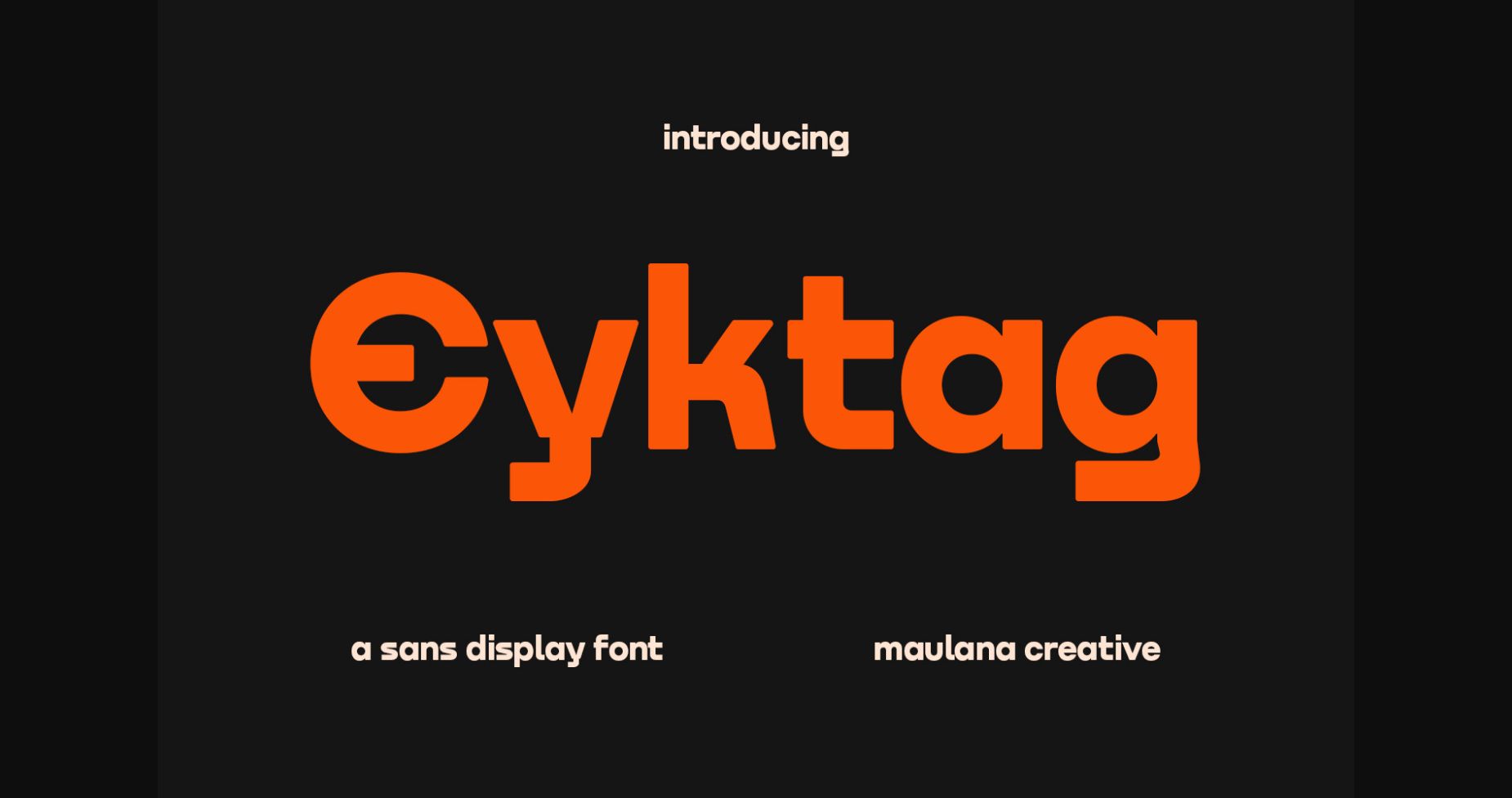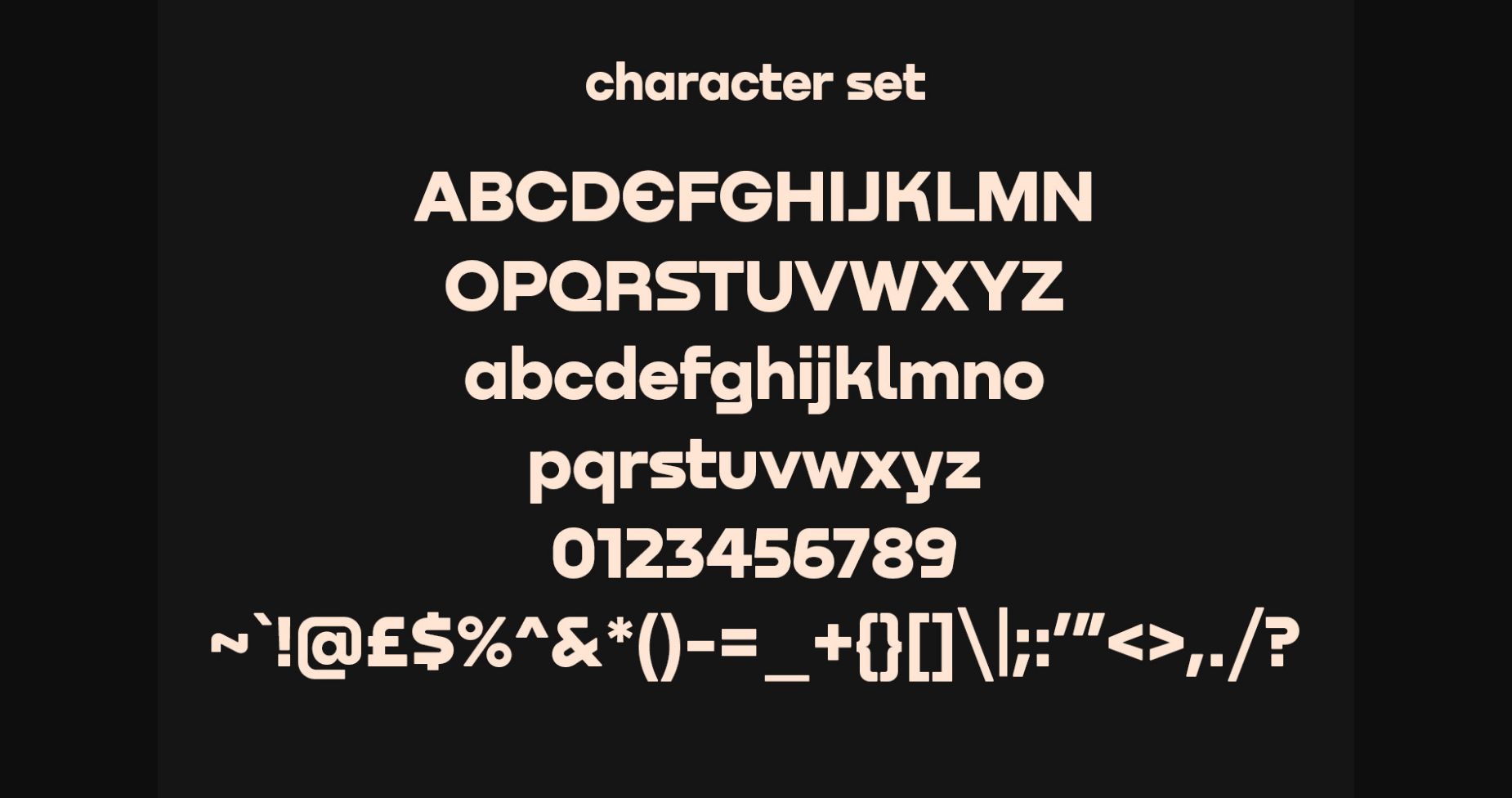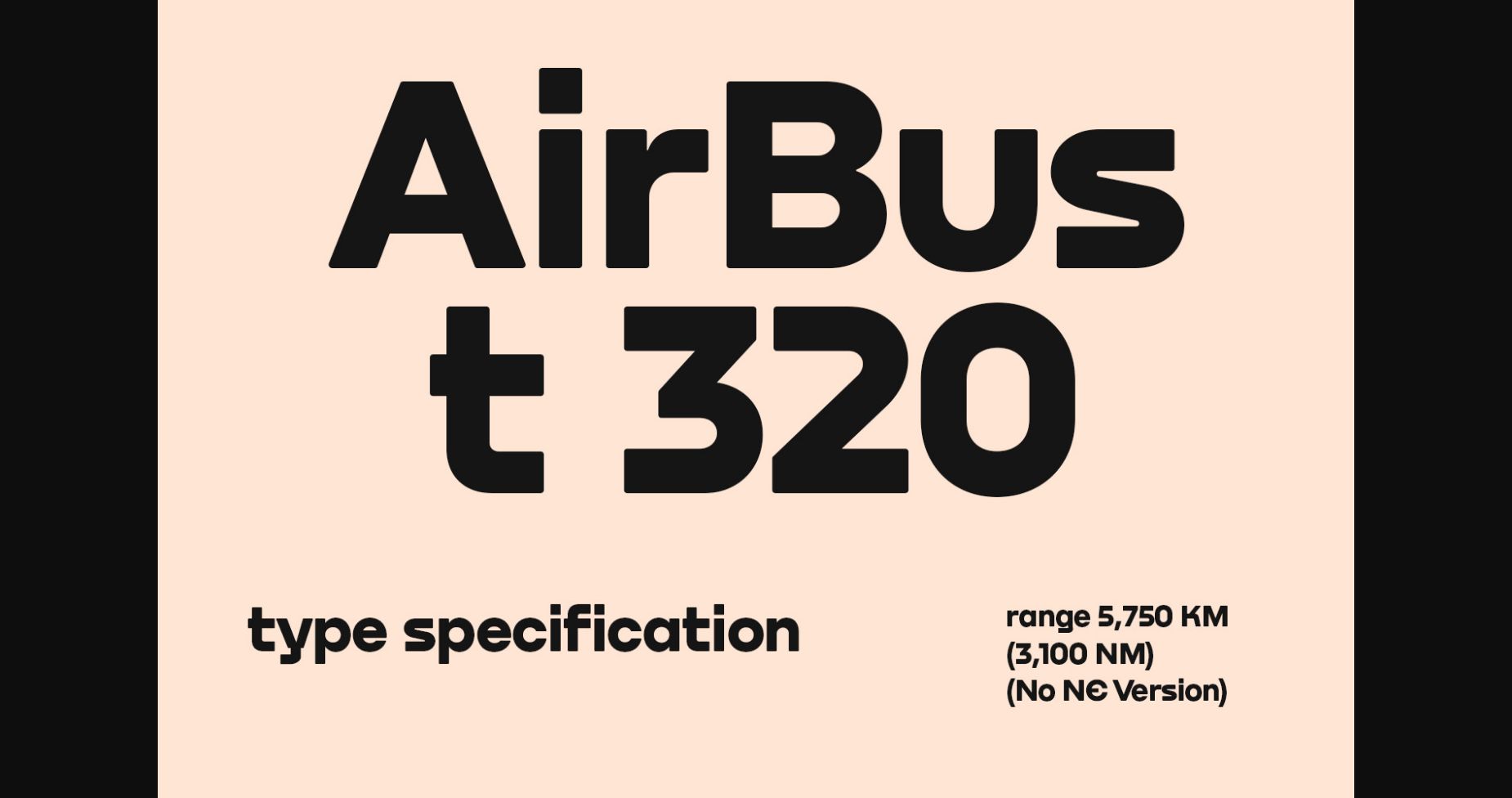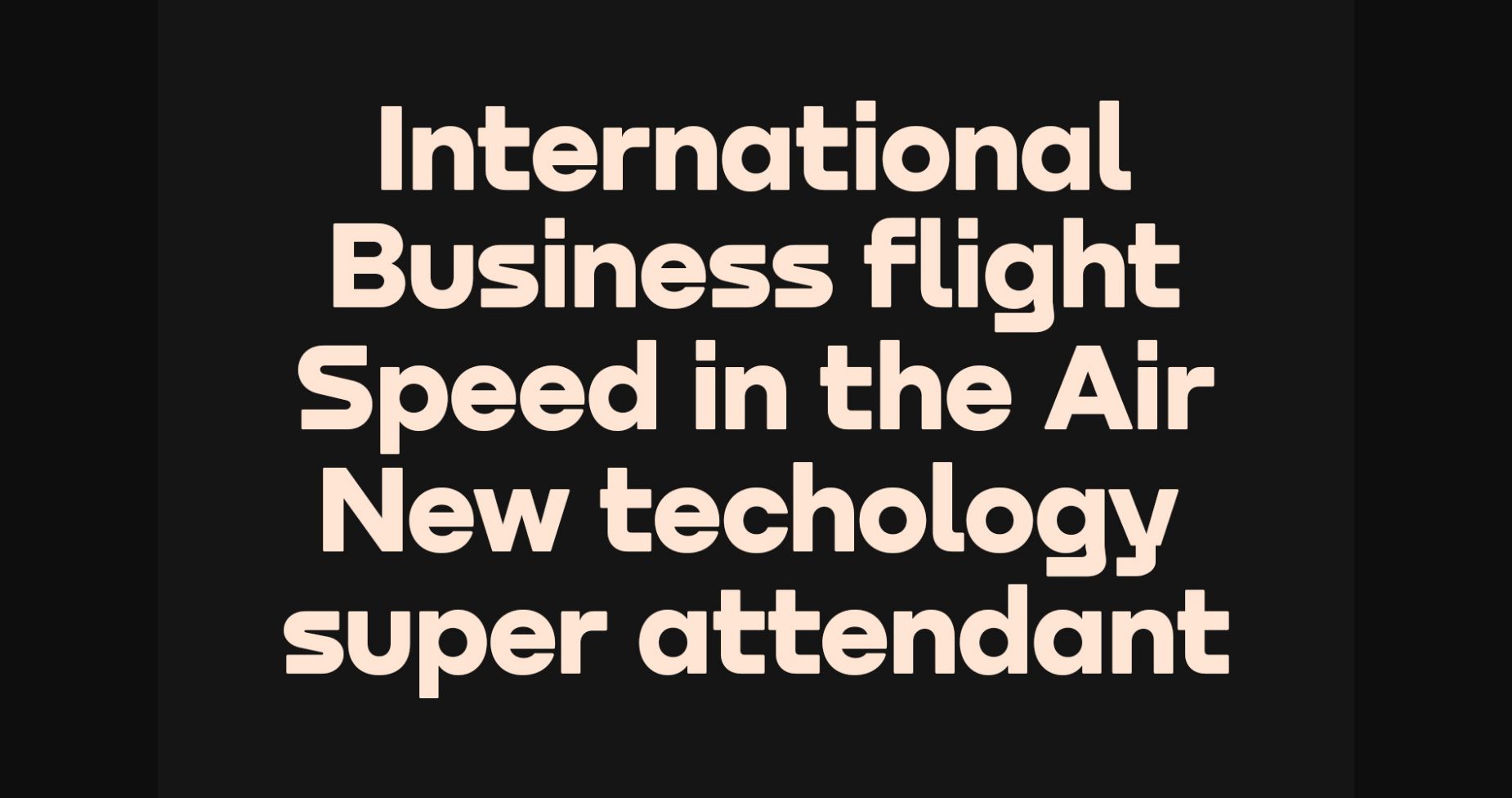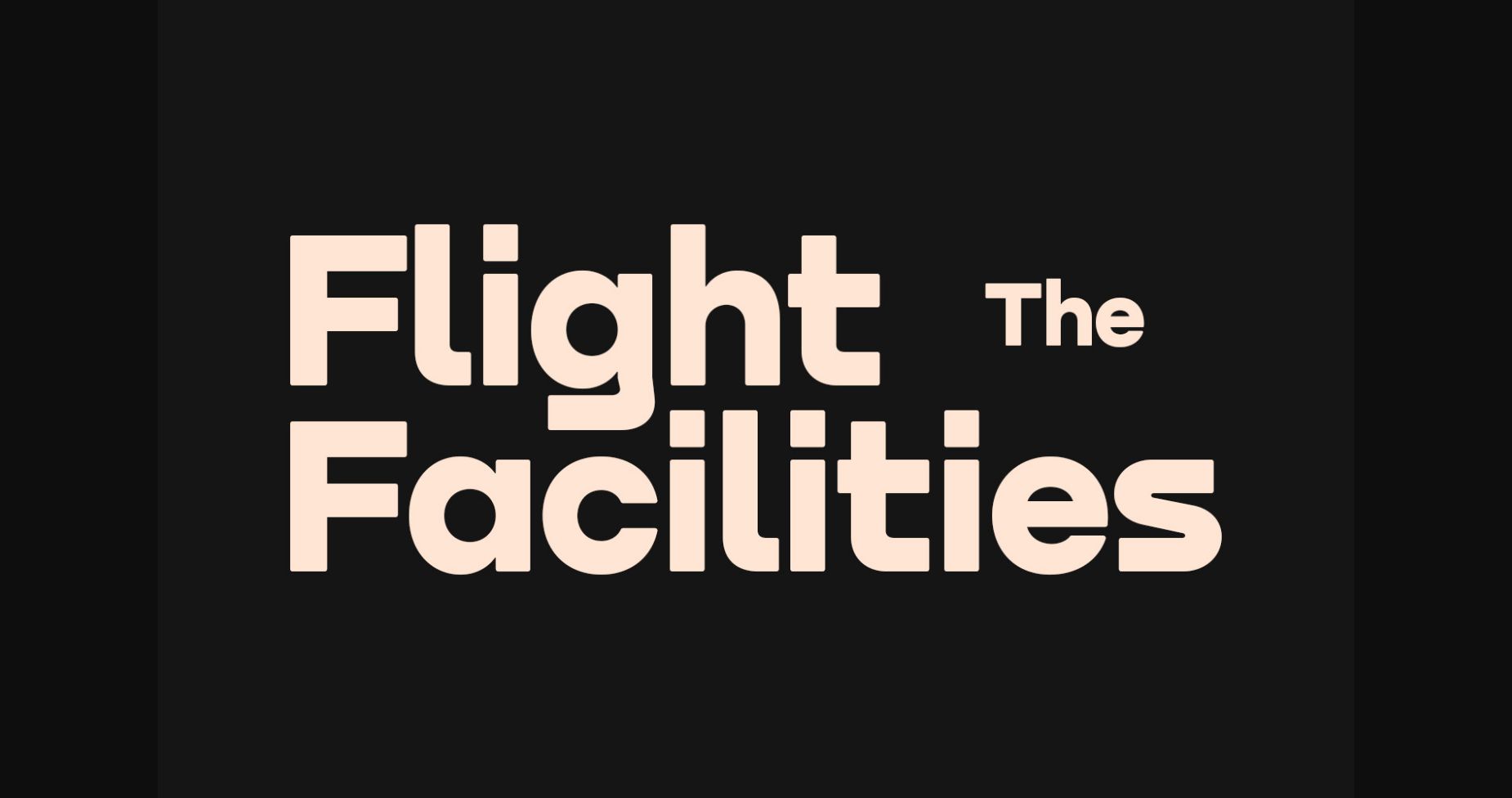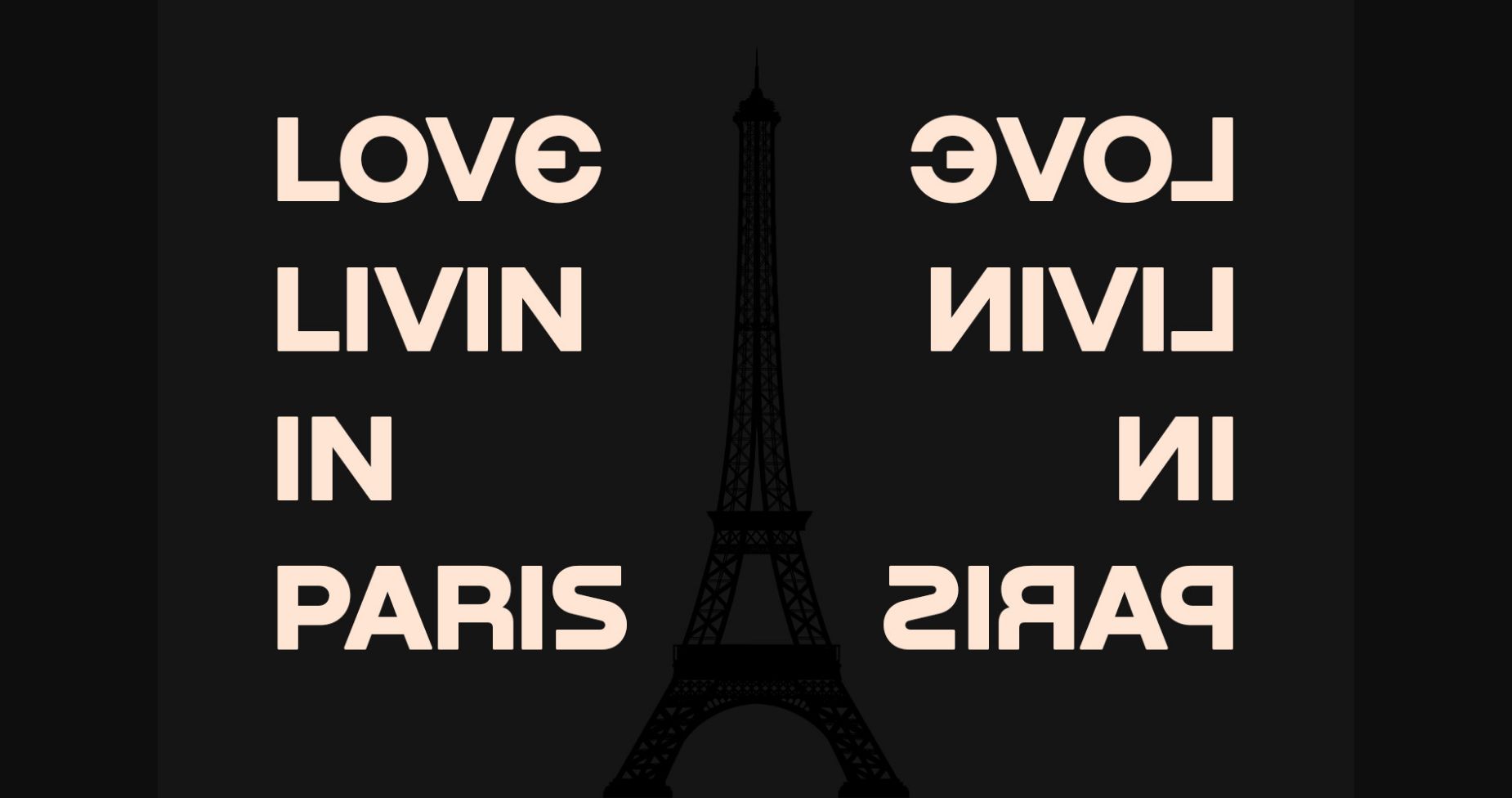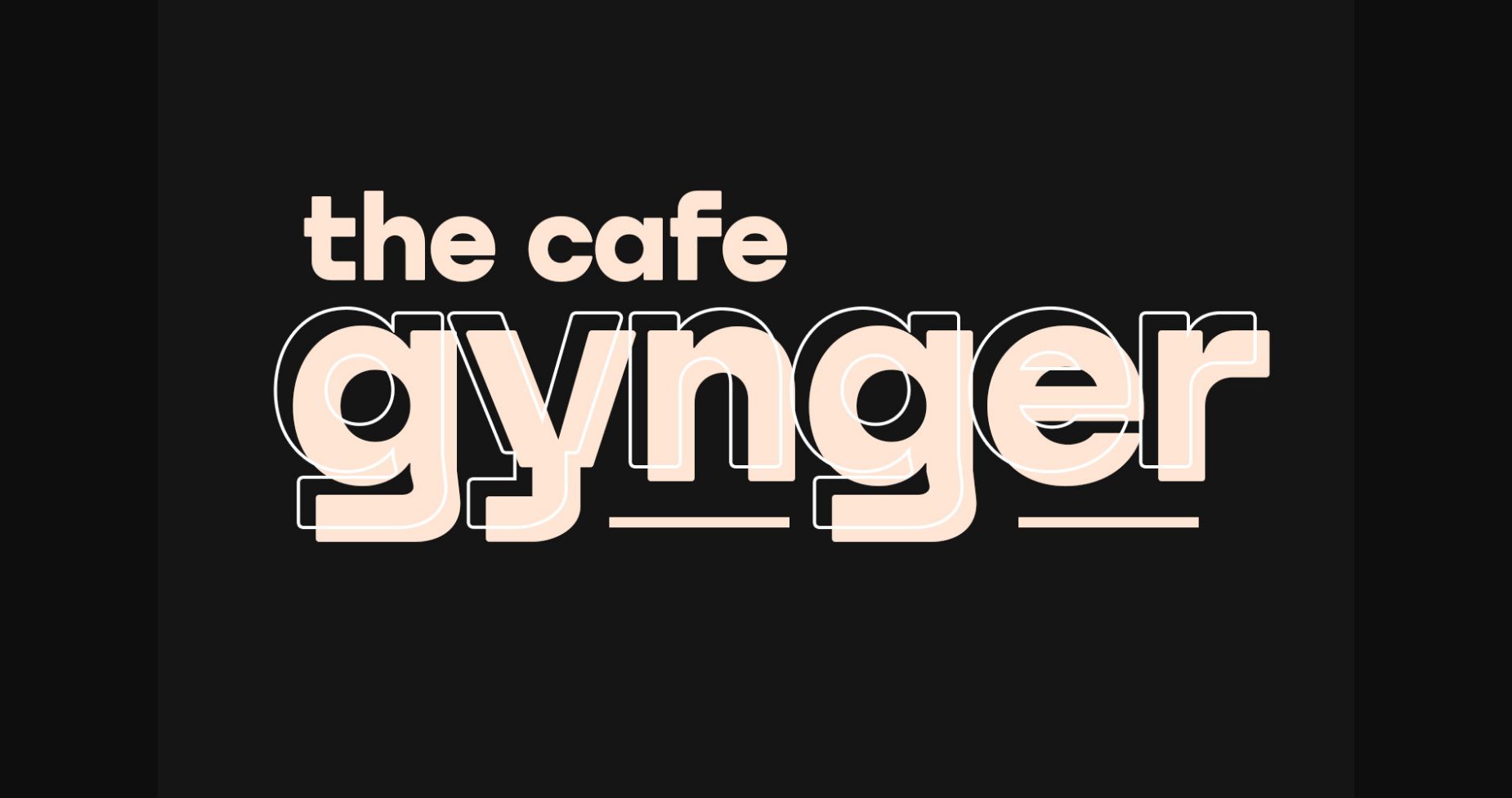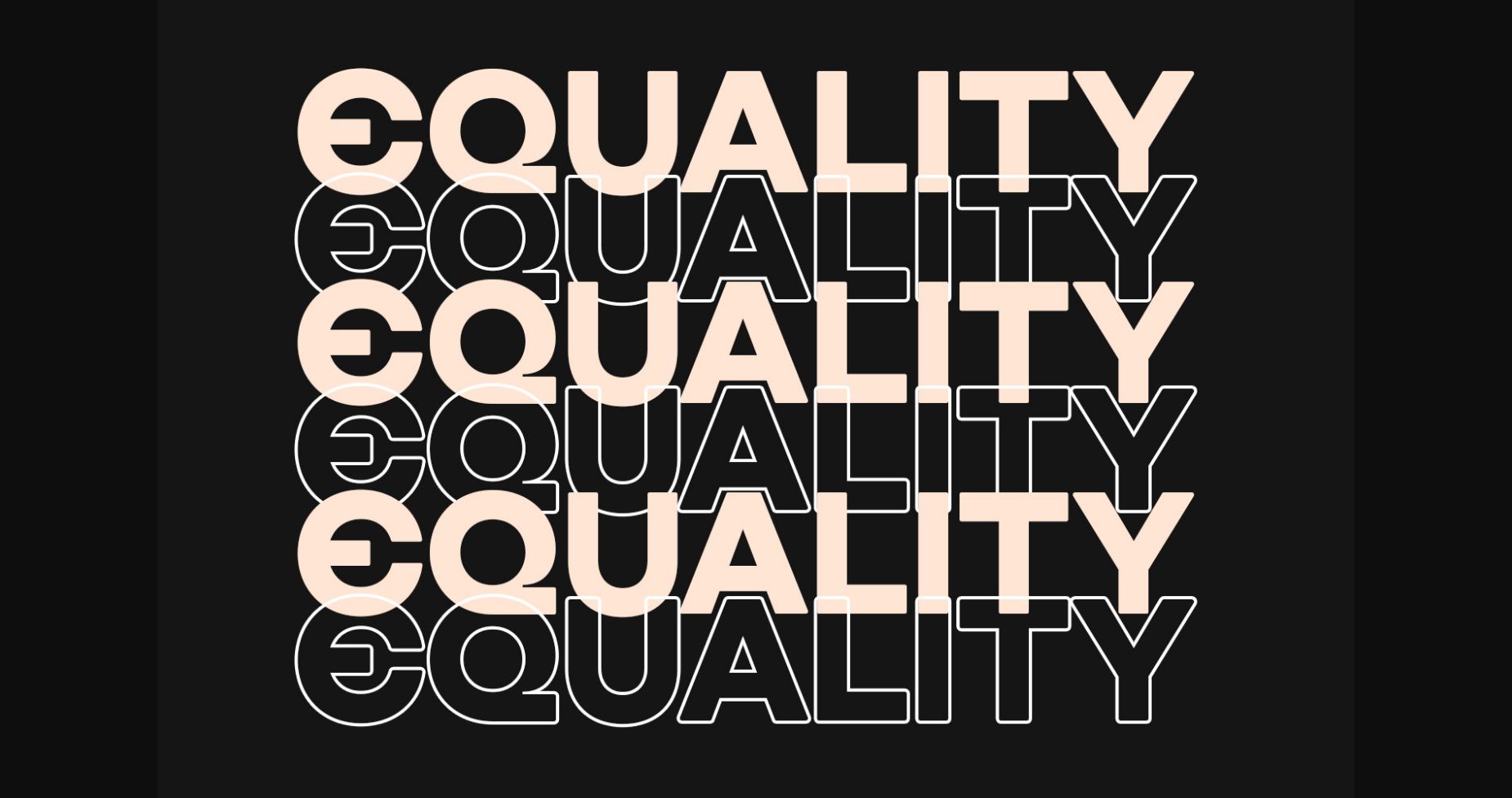
Eyktag is a simply semi-geometric sans serif font. Contemporary and fresh, it is perfect for any design you wish to create. Add it to your creative projects and make them outstanding!